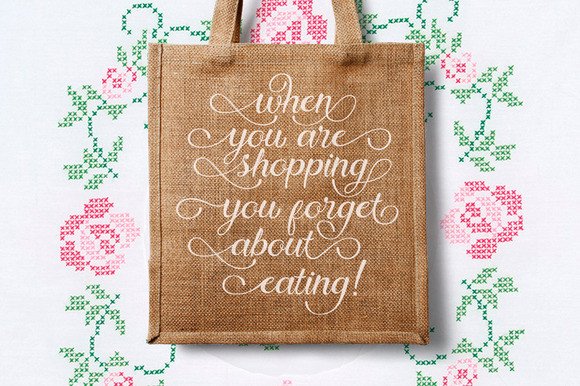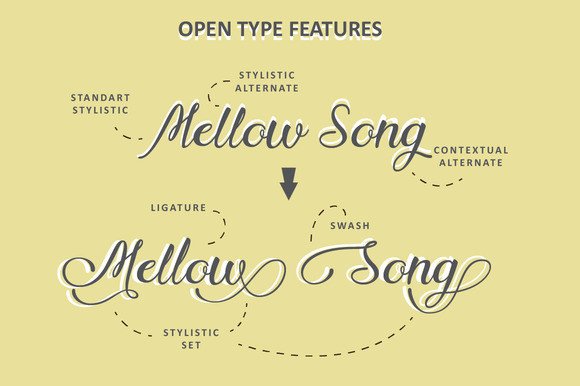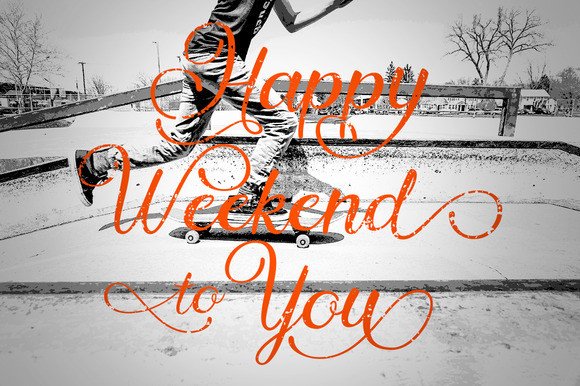
Introduction to Nadhine Font Font
Fonts play a crucial role in design, and the Nadhine Font font is a typeface that brings both character and versatility to any project. Whether you’re working on a branding project, a website, or a print design, the Nadhine Font font offers a unique style that can elevate your work.
| 👤 Author | Ian Mikraz |
The stunning Nadhine Script.
An elegant handwritten font created by Ian Mikraz .
Key Features of Nadhine Font Font
Why Choose Nadhine Font Font?
The Nadhine Font font is more than just a typeface – it’s a design tool that helps you communicate your message with style and clarity. Its unique character set and versatile design make it suitable for a wide range of applications, from elegant invitations to bold headlines.
With its carefully crafted letterforms and balanced proportions, the Nadhine Font font ensures readability and visual appeal across all mediums.
What makes Nadhine Font font special?
The Nadhine Font font stands out with its unique design, exceptional readability, and versatility across various design applications.